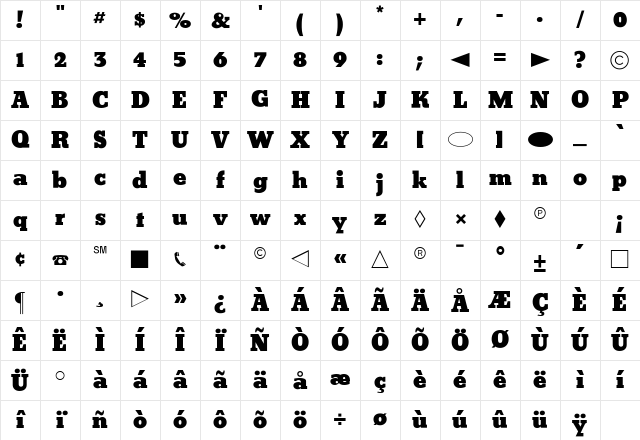
CgBetonExtraBold Medium Free Font
CgBetonExtraBold Medium
Design Context for CgBetonExtraBold
CgBetonExtraBold is a composed and adaptable typeface that performs quietly and consistently across a wide range of design contexts. Its bold stroke weight gives it real presence on the page.